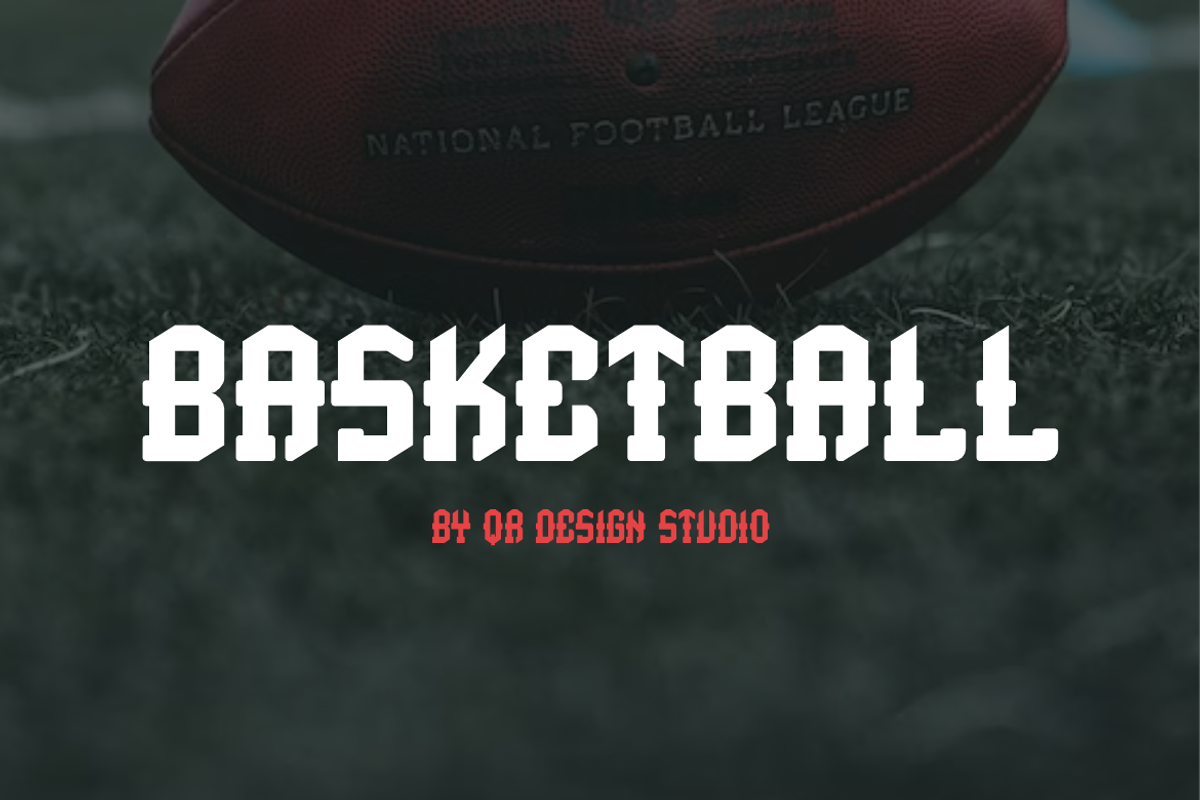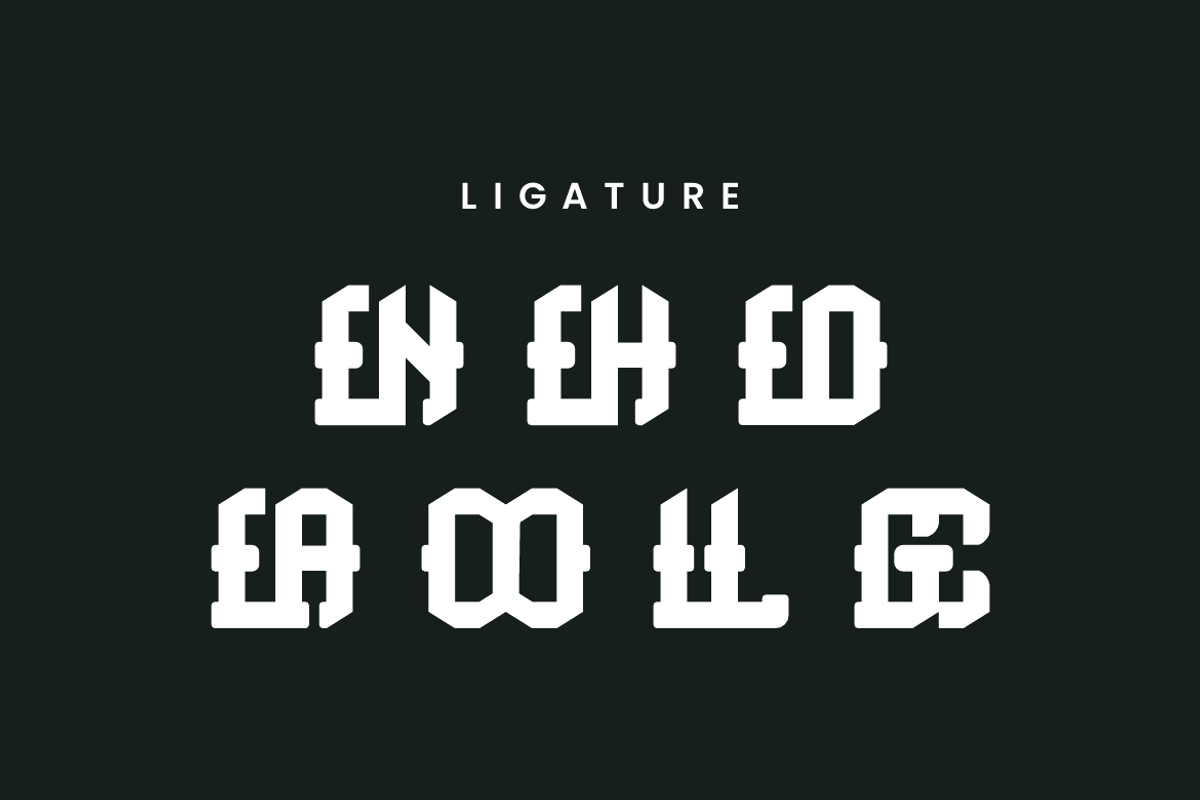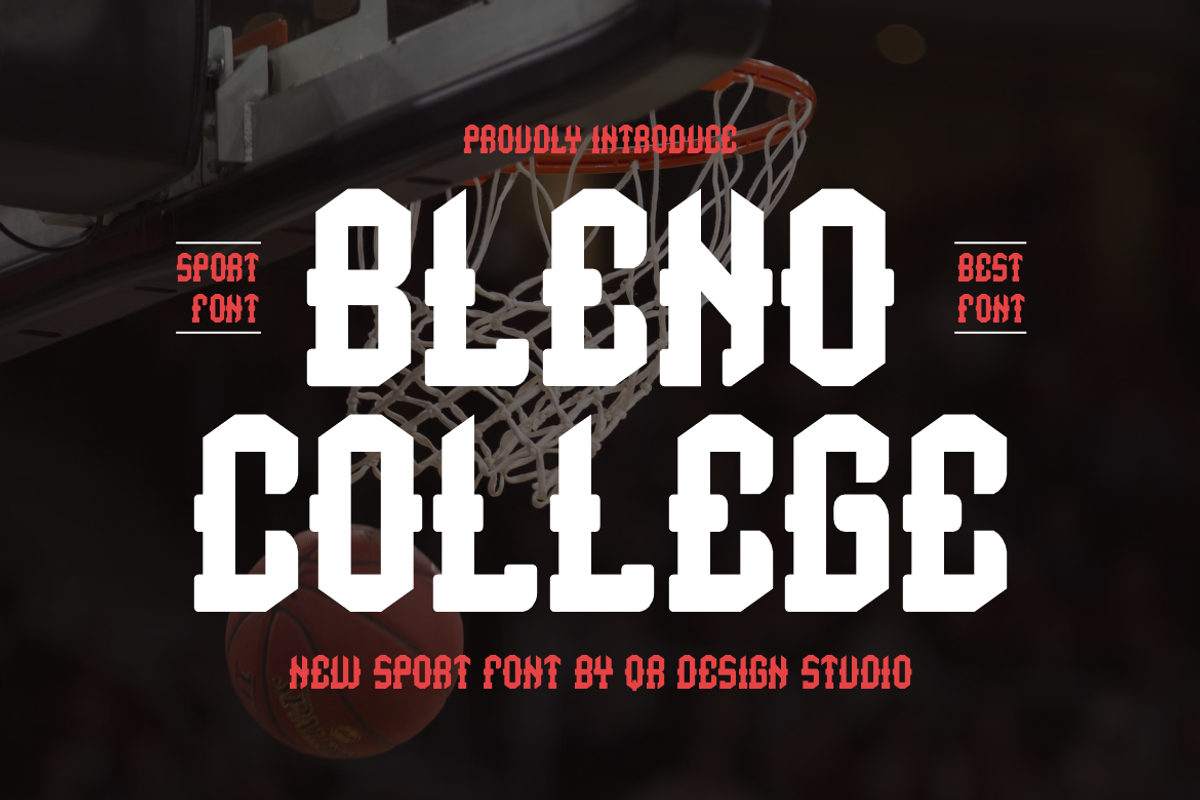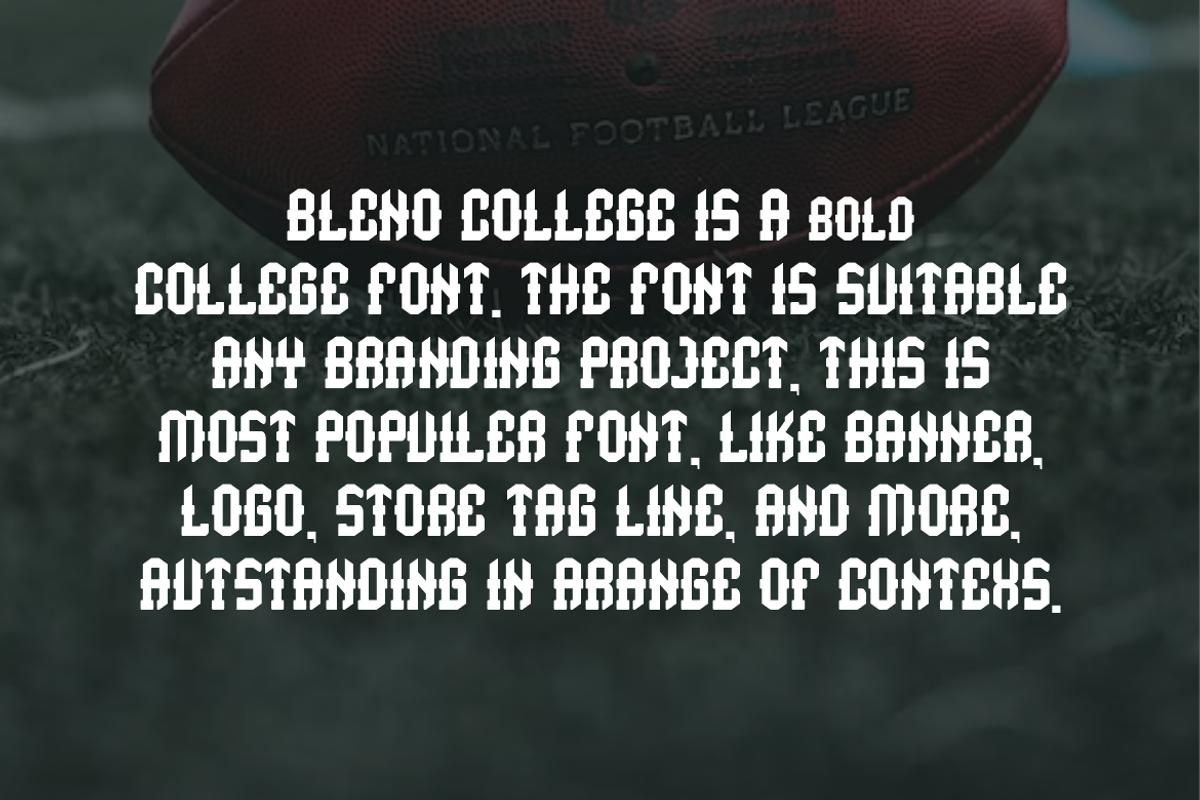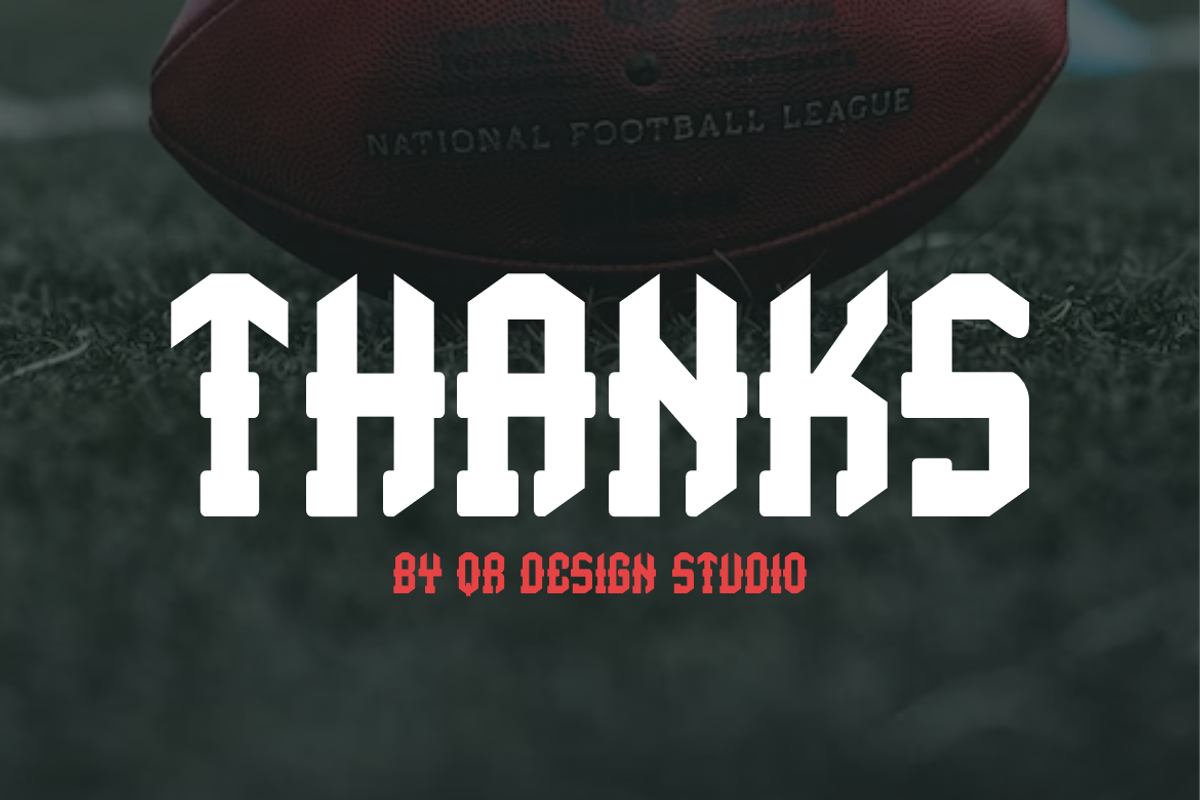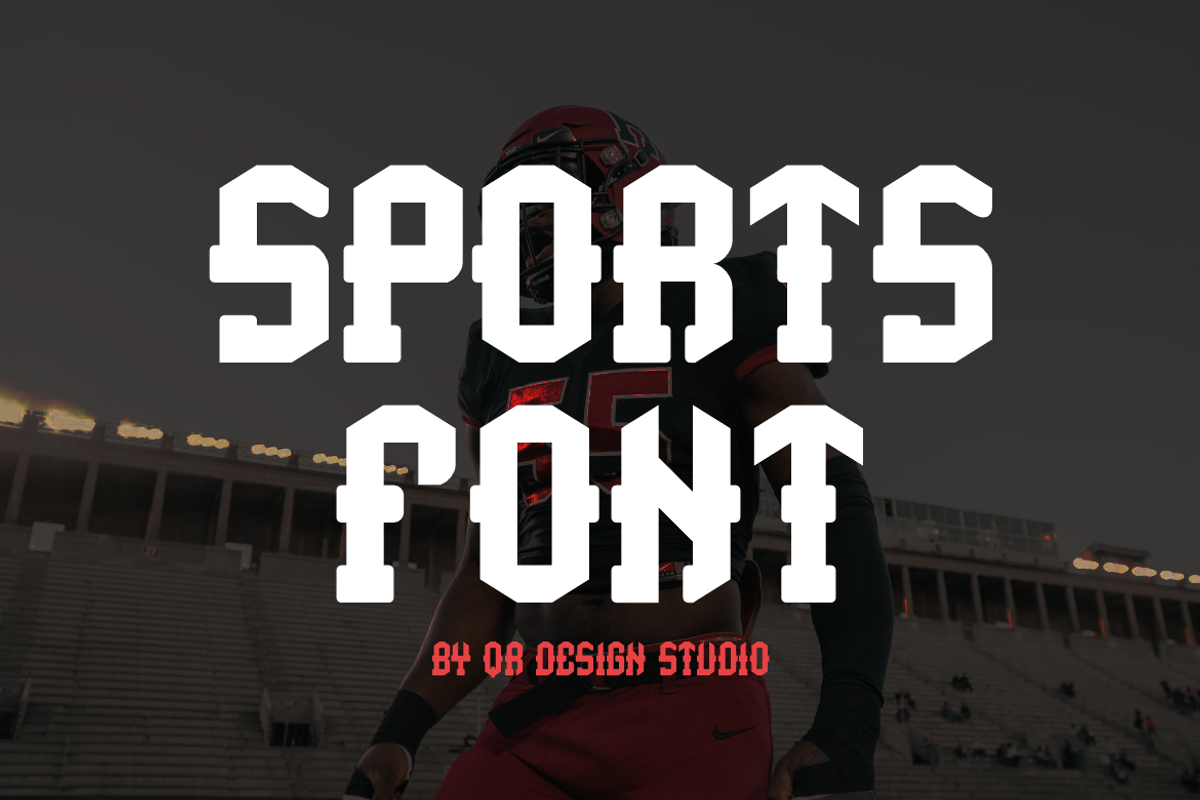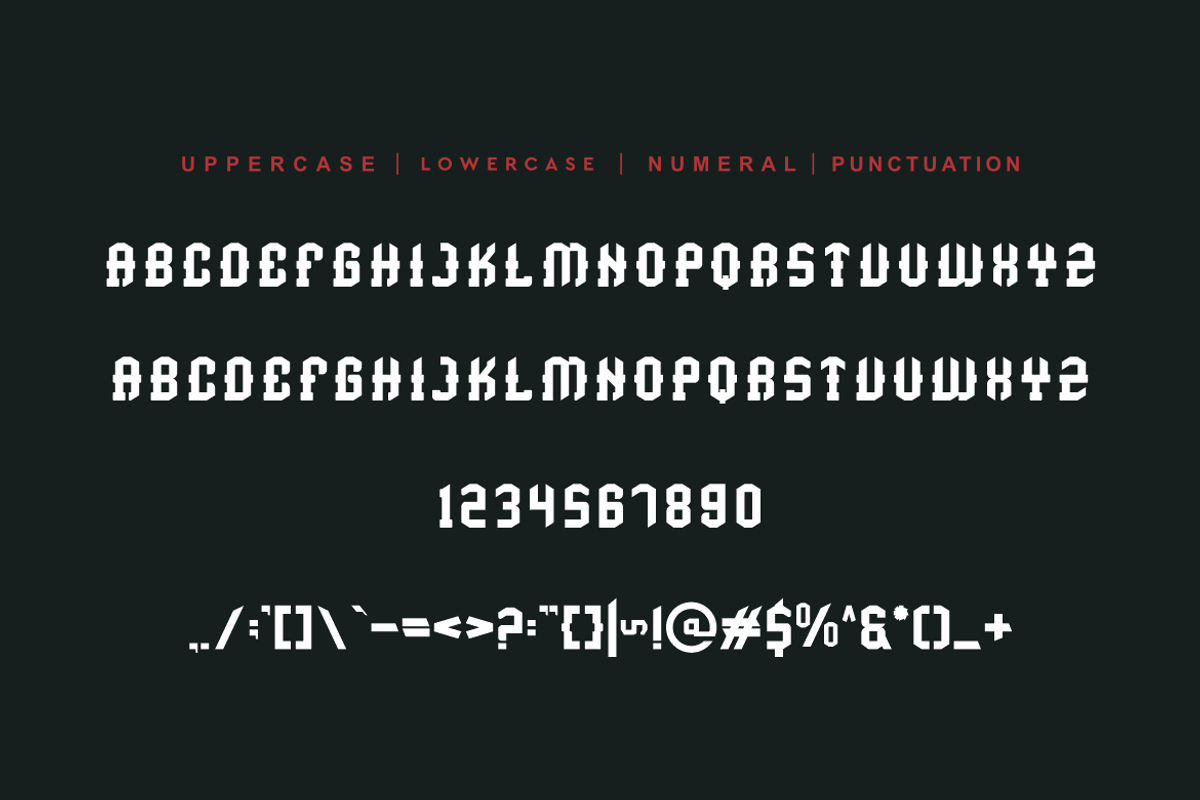
Bleno College Font
Bleno College Font is a bold and authentic display font. The font is suitable for any branding project like poster, logo, sport, and many more. Outstanding in a wide range of contexts.